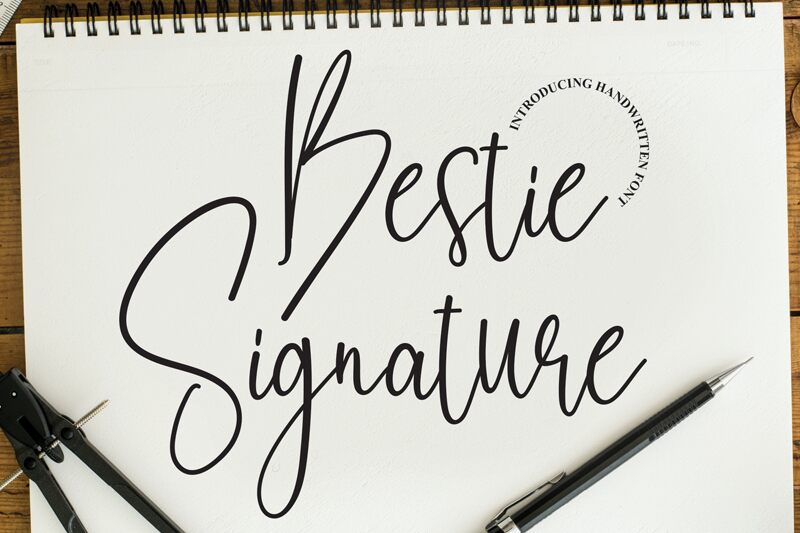
Bestie Signature
Bestie Signature, designed by Scratchones, is an elegant and refined signature font that exudes effortless sophistication.
With its extra-light weight and condensed width, this font adds a touch of finesse to any project. Ideal for wedding invitations, luxury branding, fashion magazines, or high-end product packaging, Bestie Signature will elevate your designs to new heights. Its flowing strokes and exquisite letterforms create a sense of exclusivity and class.
Embrace the elegance of Bestie Signature for projects that demand a distinctive and stylish touch.